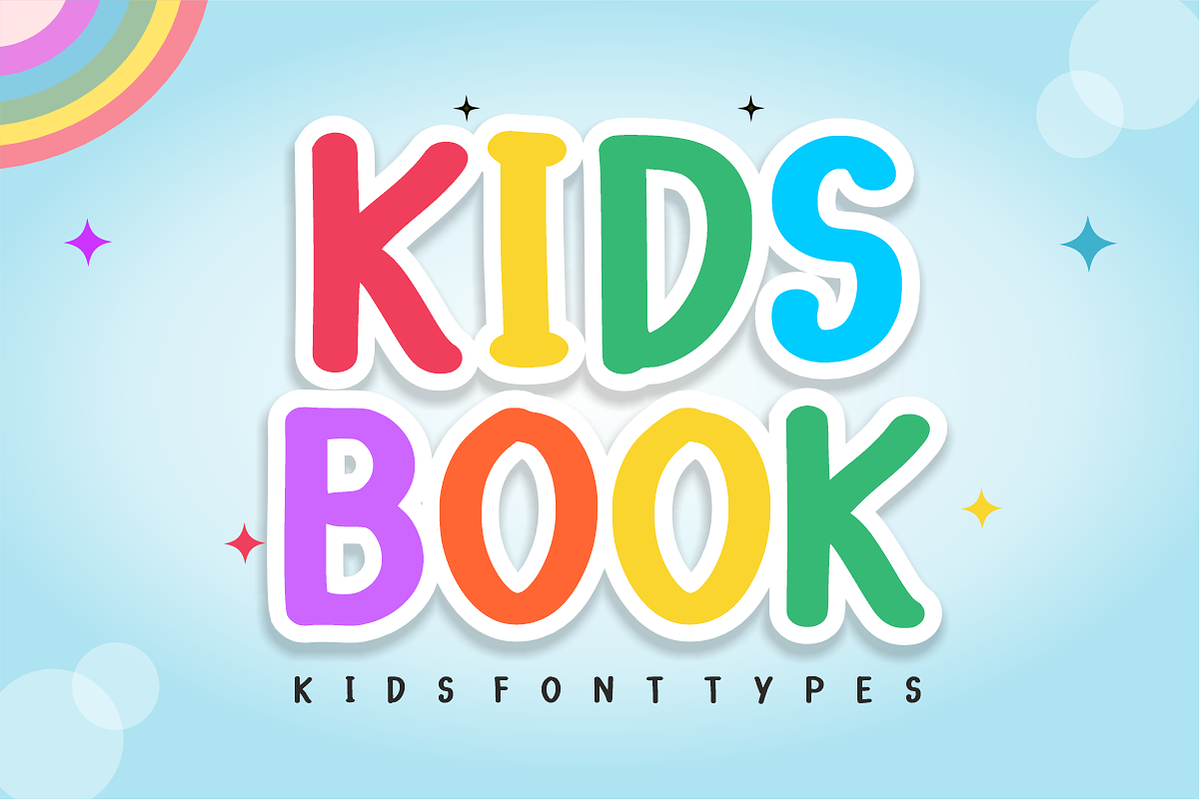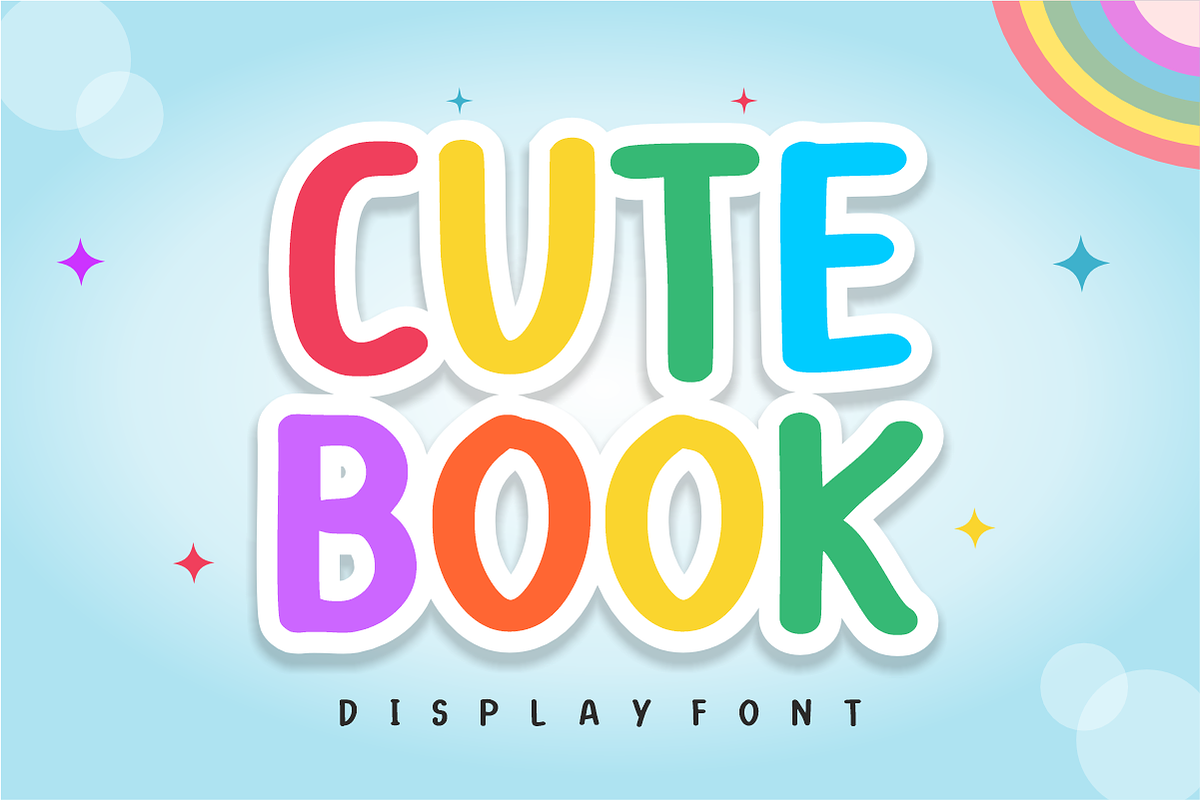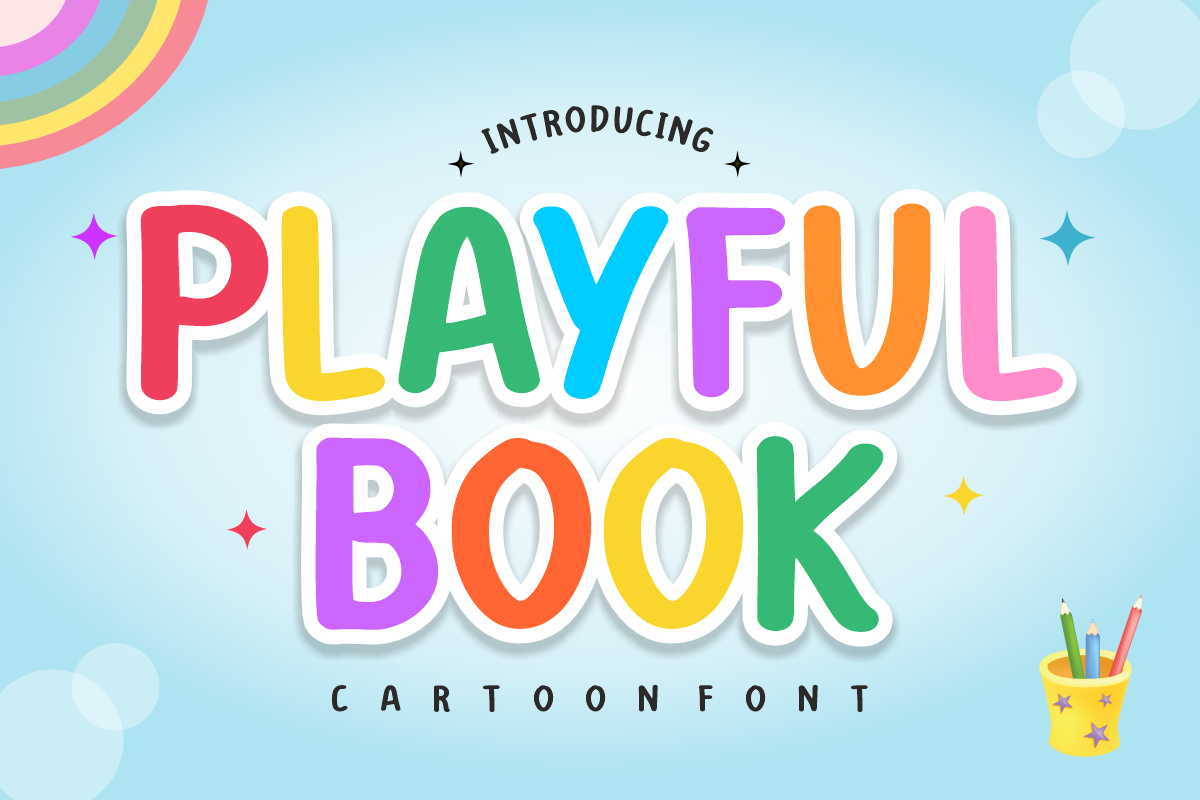
Playful Book - Cartoon Display Font
Playful Book - Cute Cartoon Display Font
Dive into a world of imagination and joy with Playful Book! True to its character as a vibrant "cartoon font," this ultra-chunky display font features soft, rounded, and wonderfully bubbly letterforms. It is specifically engineered to maximize visual impact while maintaining an approachable, hand-drawn aesthetic that instantly captures attention.
Perfect for children’s publishing, educational materials, and whimsical product branding, Playful Book seamlessly balances high-energy storytelling with absolute legibility. It is highly versatile, expressive, and fully optimized for flawless integration into your premium print and digital design workflows.
All-Caps Character Set (Chunky, bold, and happy uppercase letters)
Numbers & Basic Punctuation (Essential, simple symbols included)
Children’s Book Covers & Playful Editorial Layouts 📚
School Projects, Daycare Identity, & Educational Materials 🎒
Kids' Product Packaging, Toy Labels, & Nursery Decor 🧸
Social Media Marketing & Engaging Video Content 📱
Cricut, Silhouette, & DIY Craft Sublimation Projects ✂️